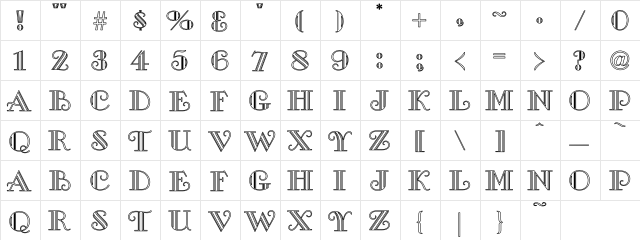
Galleria Ho Regular
Design Context for Galleria Ho Typeface
Galleria Ho is a composed and adaptable typeface that performs quietly and consistently across a wide range of design contexts.